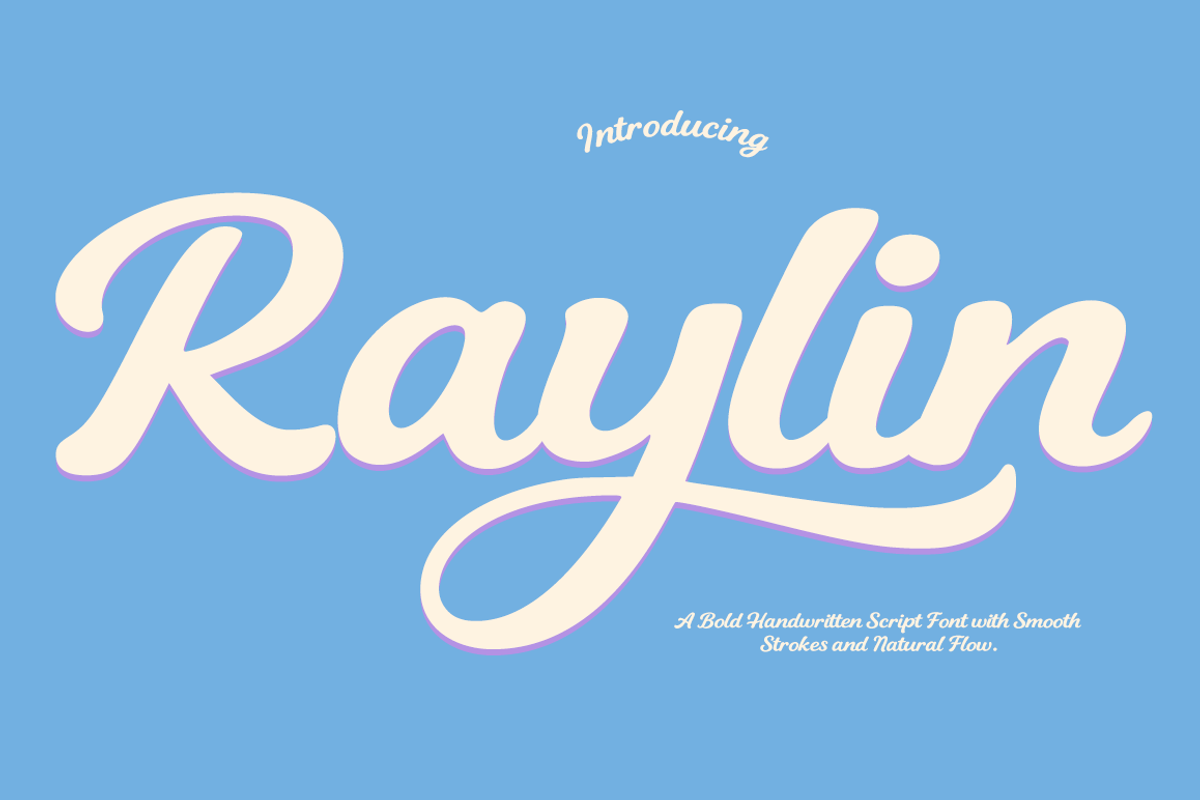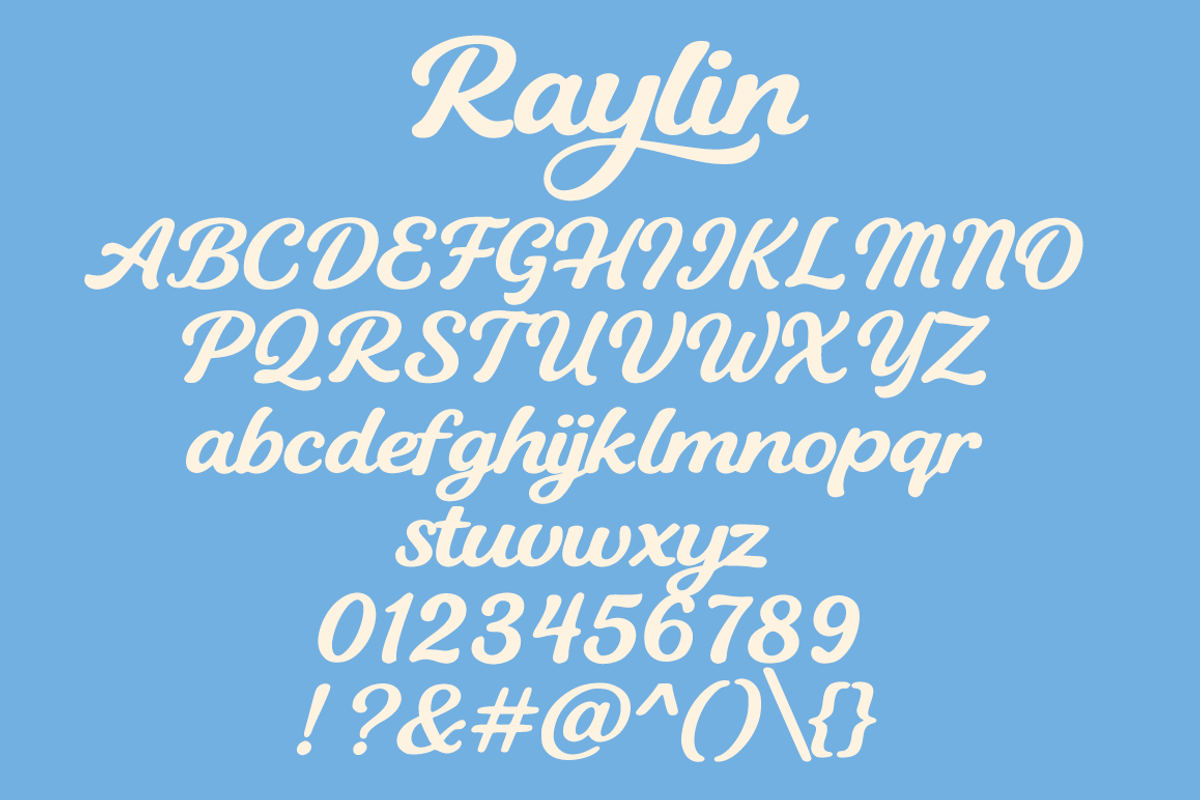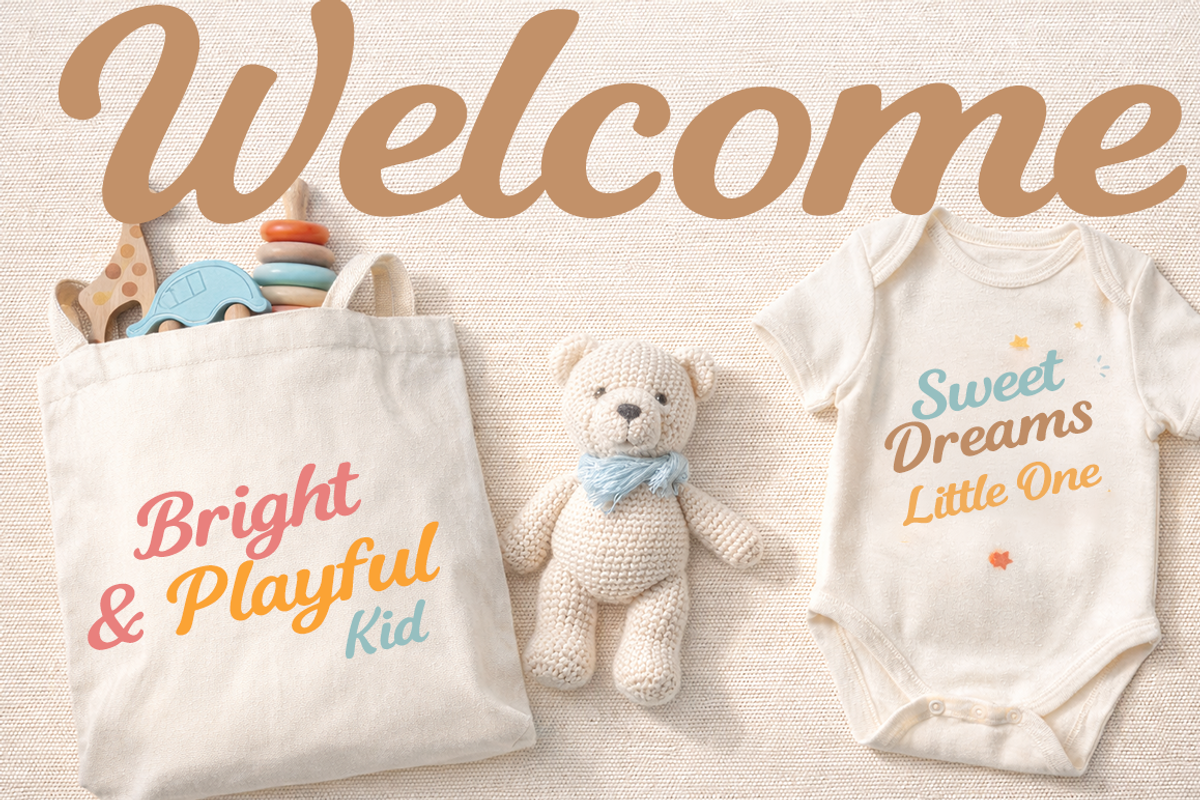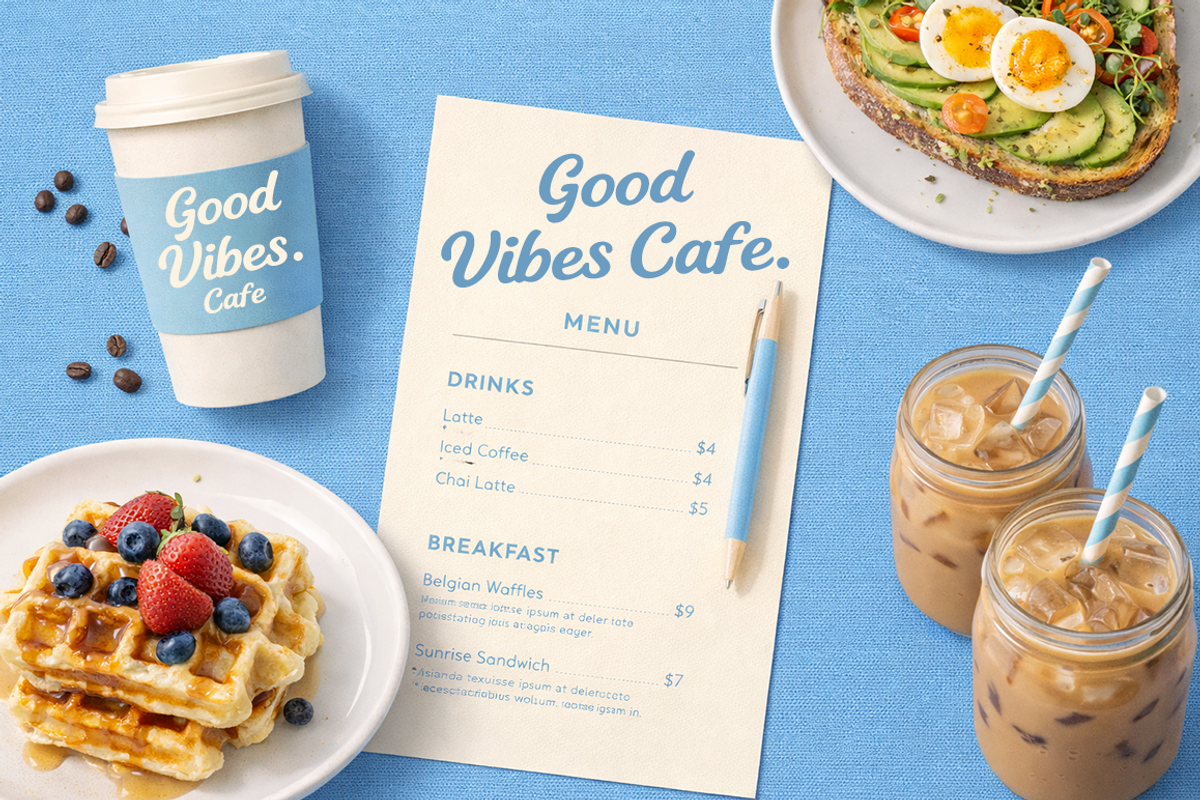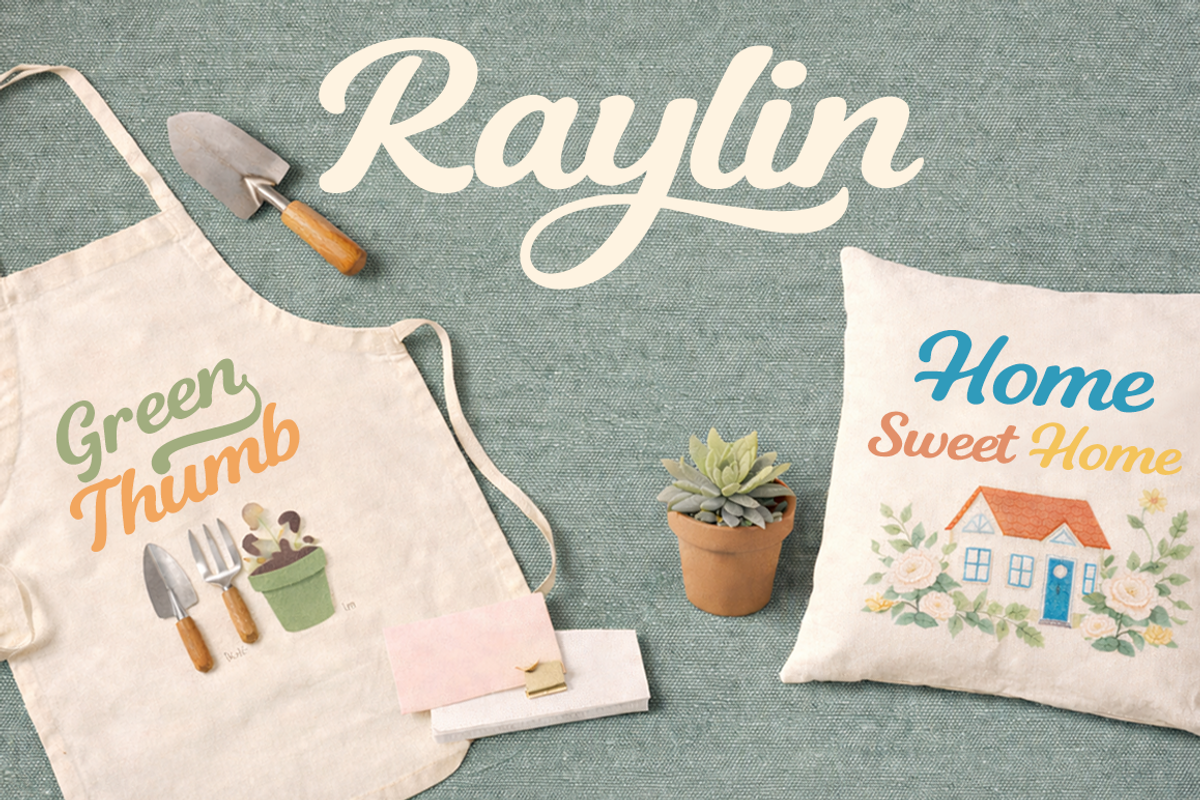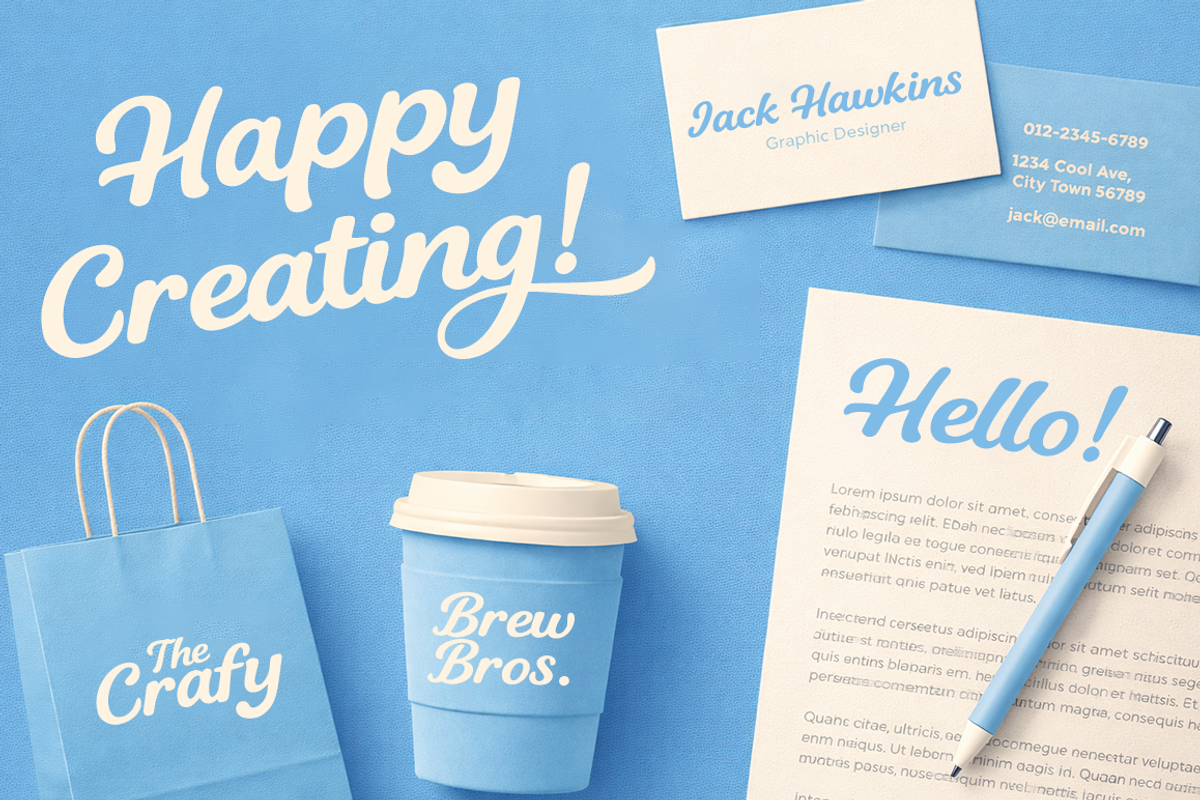
Raylin is a bold handwritten script
RAYLIN is a bold handwritten script font featuring smooth curves, rounded strokes, and a natural flowing rhythm. Designed to feel friendly yet confident, this font delivers strong visual impact while remaining clean and readable.
With its balanced letterforms and soft terminals, Raylin works beautifully across a wide range of design needs — from branding and logos to posters, packaging, apparel, social media graphics, and creative projects. The script style adds warmth and character, while the bold weight ensures clarity and versatility in both digital and print use.
Raylin is crafted to stand out without being overpowering, making it suitable for modern brands that want a playful, stylish, and approachable look.